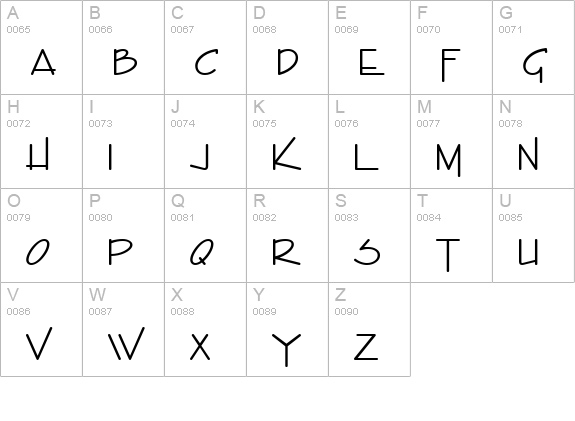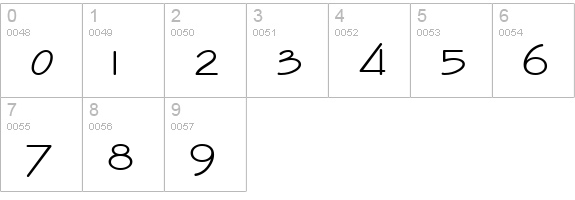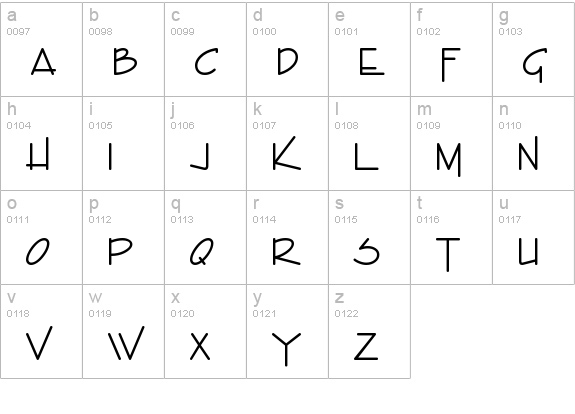
Enviro ICG Font Details
Enviro ICG font is a versatile and modern typeface that exudes a sense of environmental consciousness and sustainability. With its clean lines and rounded edges, this font is perfect for conveying a message of eco-friendliness and conservation. The soft curves and balanced proportions of Enviro ICG make it easy to read and visually appealing in a variety of design applications. What sets Enviro ICG font apart is that it is available for free download at FontsMarket.com. By offering this font for free, the creators of Enviro ICG are making it accessible to a wide range of designers, educators, and environmental advocates who want to incorporate a touch of green messaging into their projects. Whether you are designing a poster for a sustainability event, creating educational materials about environmental issues, or simply looking to add a touch of nature-inspired design to your work, Enviro ICG font is the perfect choice. Embrace the beauty of nature and the power of design with Enviro ICG font, a free and versatile typeface that will elevate your projects with a touch of environmental awareness. Download it today at FontsMarket.com and start creating impactful designs that inspire positive change.